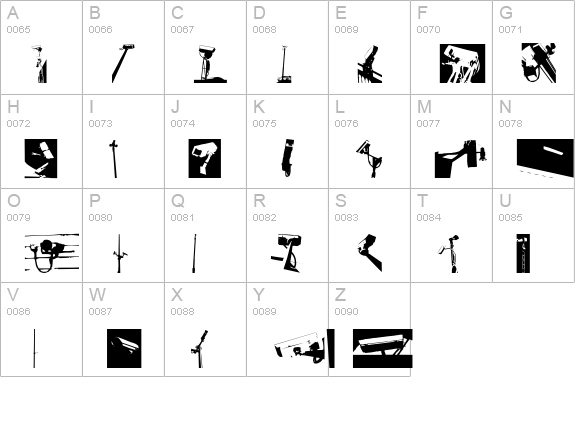
Surveillance-Witness font is a bold and eye-catching typeface that is perfect for creating impactful designs. With its sharp edges and modern aesthetic, this font exudes a sense of authority and sophistication. Whether you are working on a poster, logo, or website, Surveillance-Witness font will surely make your text stand out. What sets Surveillance-Witness font apart is that it is available for free download at FontsMarket.com. This means that you can easily access this versatile font without any cost, making it a valuable addition to your design toolkit. Don't miss out on the opportunity to elevate your projects with the distinctive style of Surveillance-Witness font. Download it now and start creating stunning designs today!